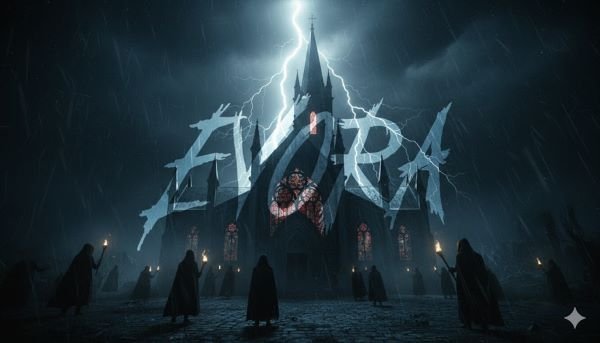
Evora Font
Evora Font is a bold, uncompromisingly edgy handwritten script created by Marek Janík for the legendary Evora band. This hand-lettered typeface radiates an unmistakable metal and anarchist attitude guaranteed to command attention. Despite its strict, disciplined appearance, Evora Font champions artistic freedom and creative rebellion. With its raw, grunge aesthetic and rough brush strokes, this font makes powerful statements in album artwork, band merchandise, horror themes, and rebellious design projects.
Font Style: Handwritten
Category: Brush, Grunge, Handwriting, Horror, Rough